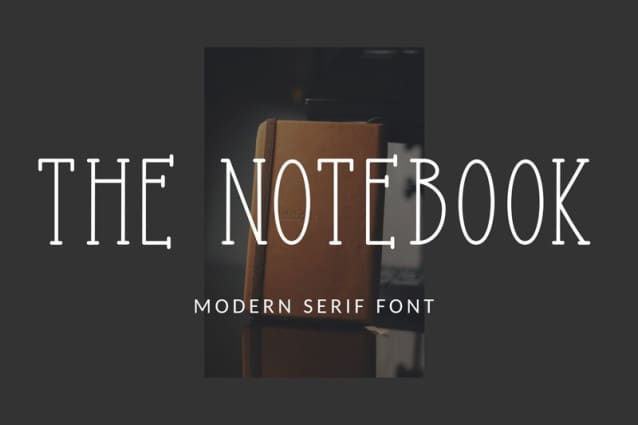
The Notebook Font
The Notebook Font, special creative products for you, our products will give you an extraordinary experience.
the latest style letters are perfect for wall displays, wedding invitations, social media post logos,
advertisements, product packaging, product designs, labels, photography, watermarks, invitations, stationery, and any project that requires taste handwriting.